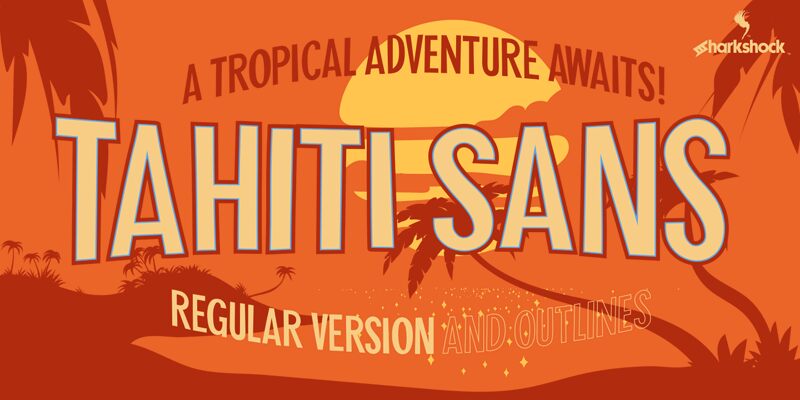
Tahiti Sans
Tahiti Sans, designed by Sharkshock, is a whimsical display font that adds a playful touch to any project. With its extra-condensed width, it effortlessly fits into tight spaces. This all caps font features slight variations in letterforms and random angles, giving it a unique character. The misaligned characters and childlike jumble create a fun and carefree vibe. Tahiti Sans is perfect for projects that require clean and easy-to-read text with a hint of excitement. It's ideal for youth sports branding, social media graphics, or eye-catching advertising campaigns. Let your creativity soar with Tahiti Sans!
Designed by Dennis Ludlow